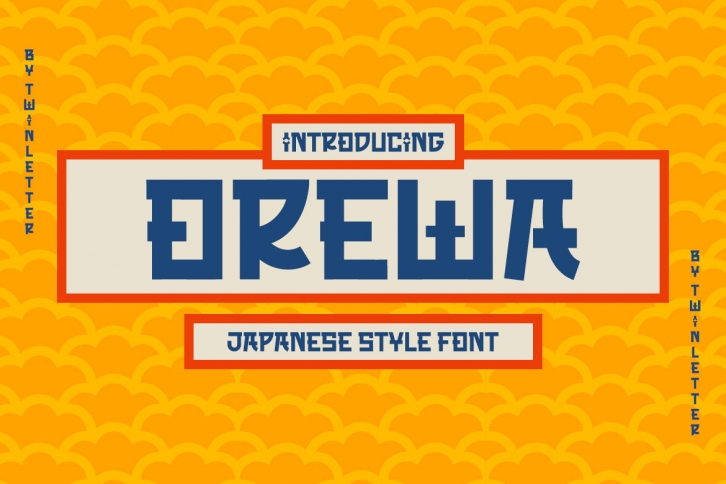
Orewa is a unique and fresh display font that will help you create outstanding designs. Anyone will be drawn to this striking and unusual display font, so use it confidently for any project you have coming up!